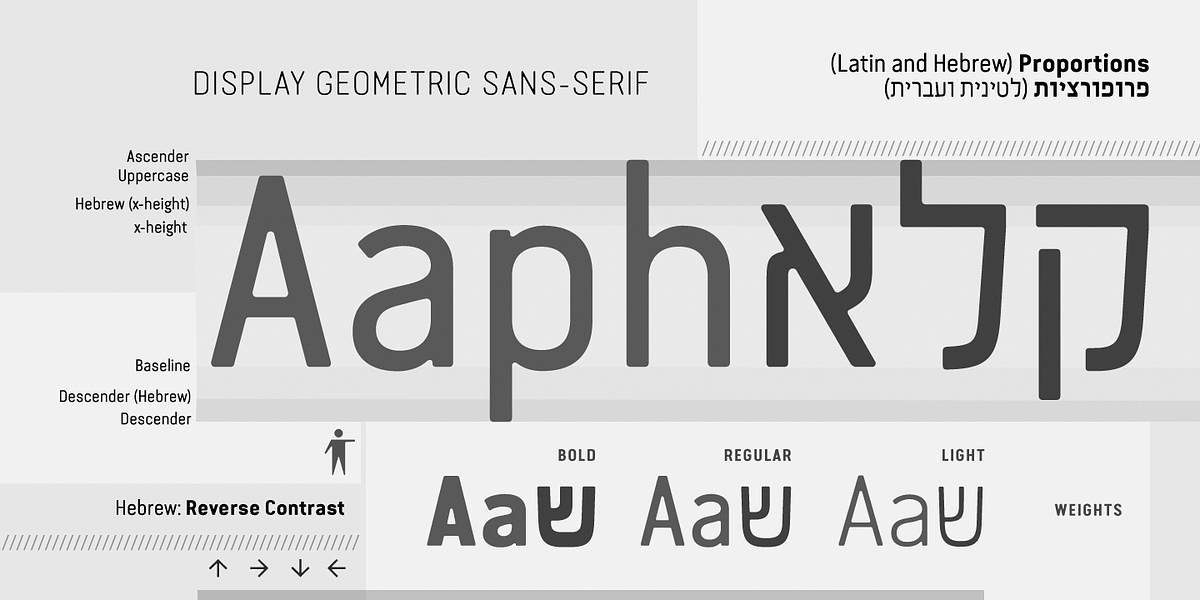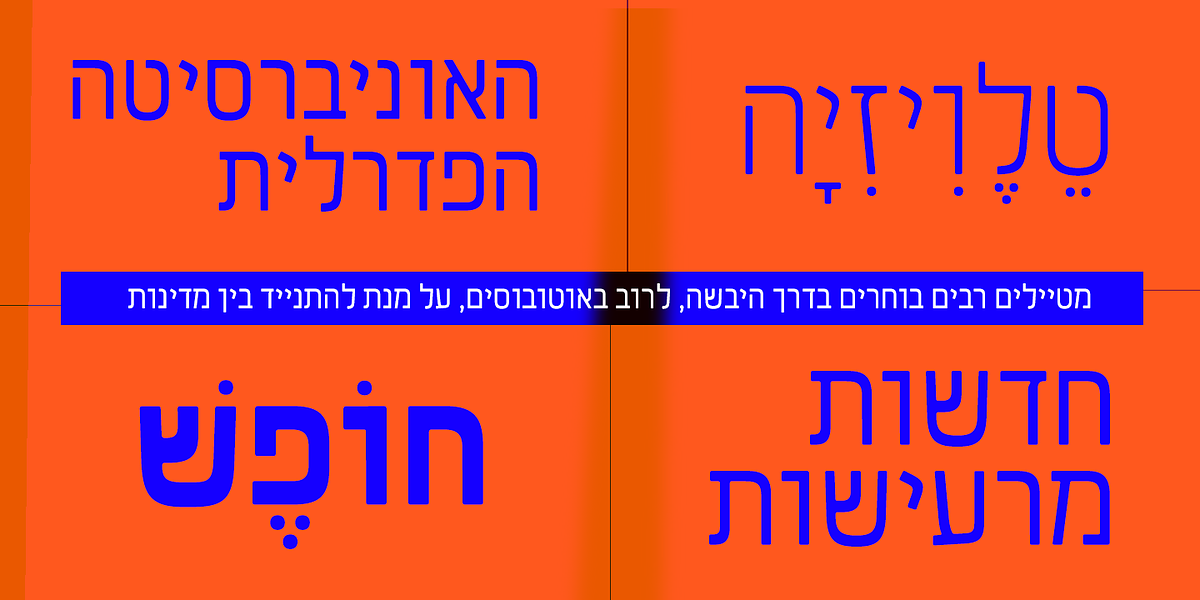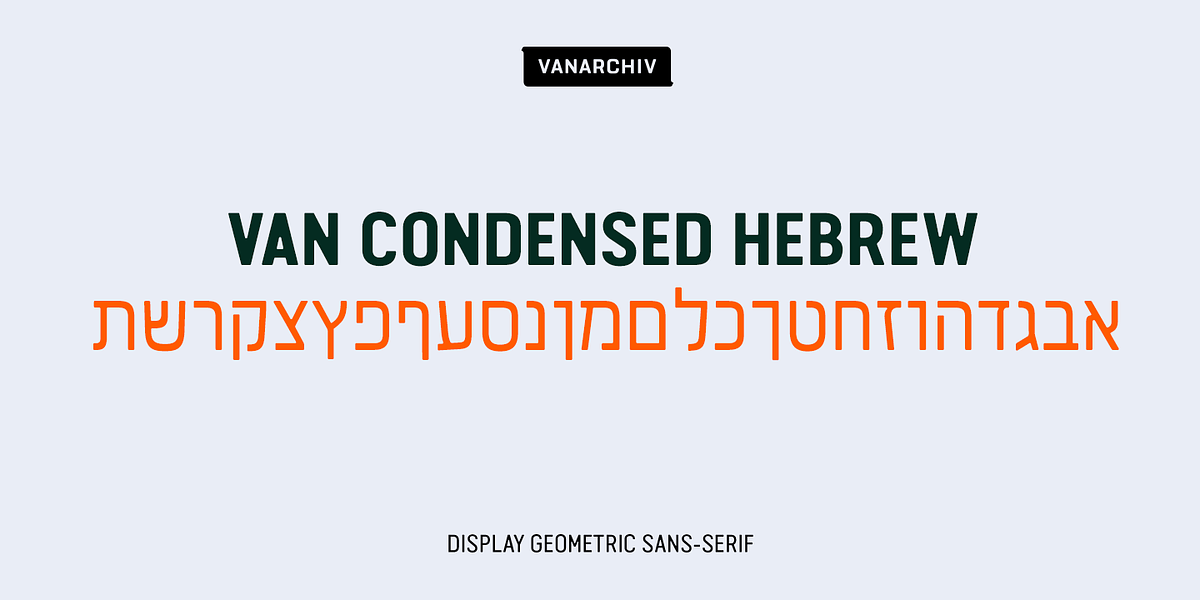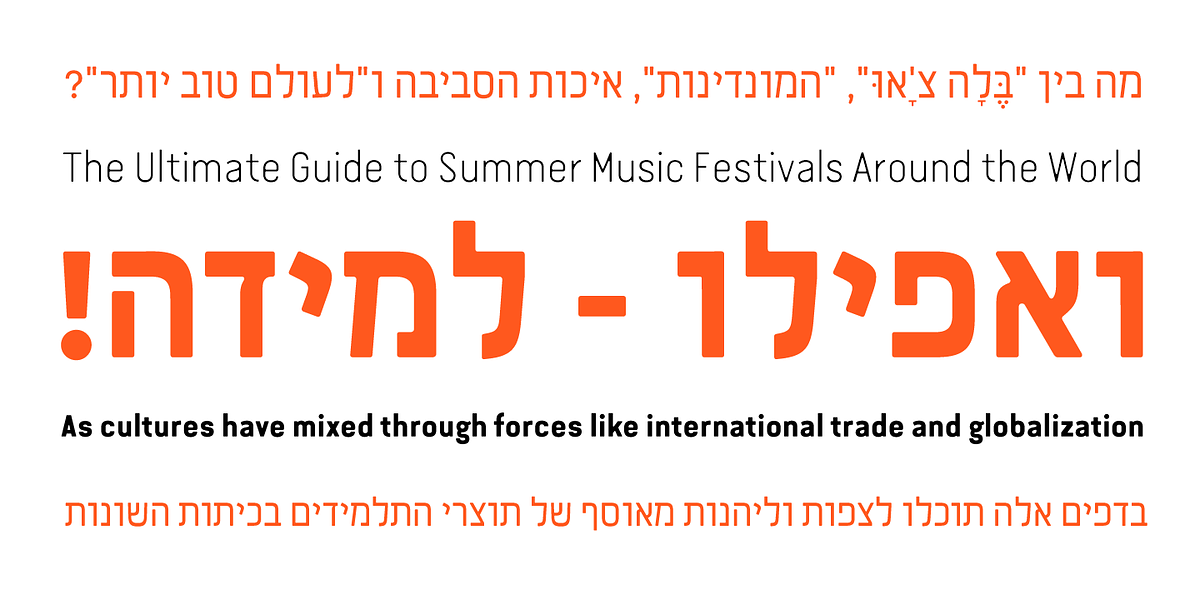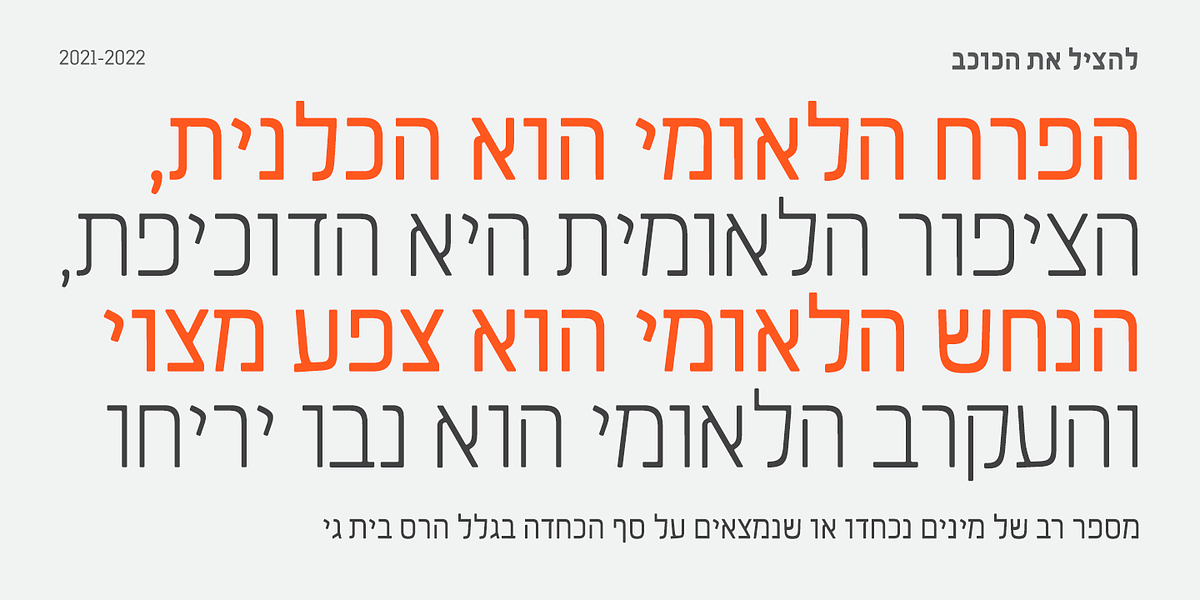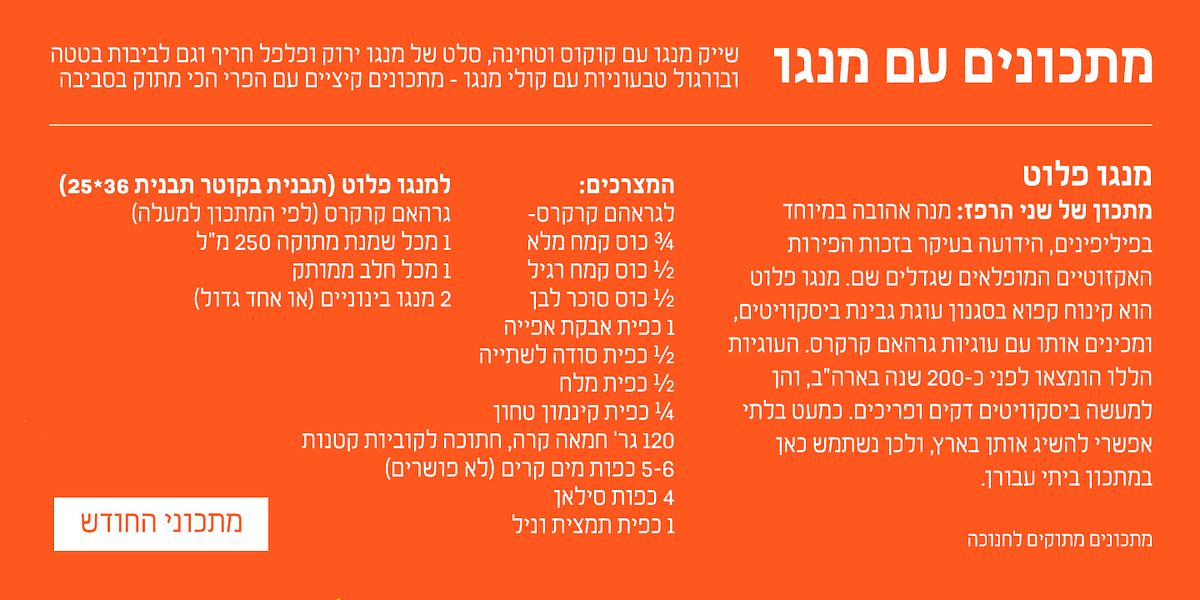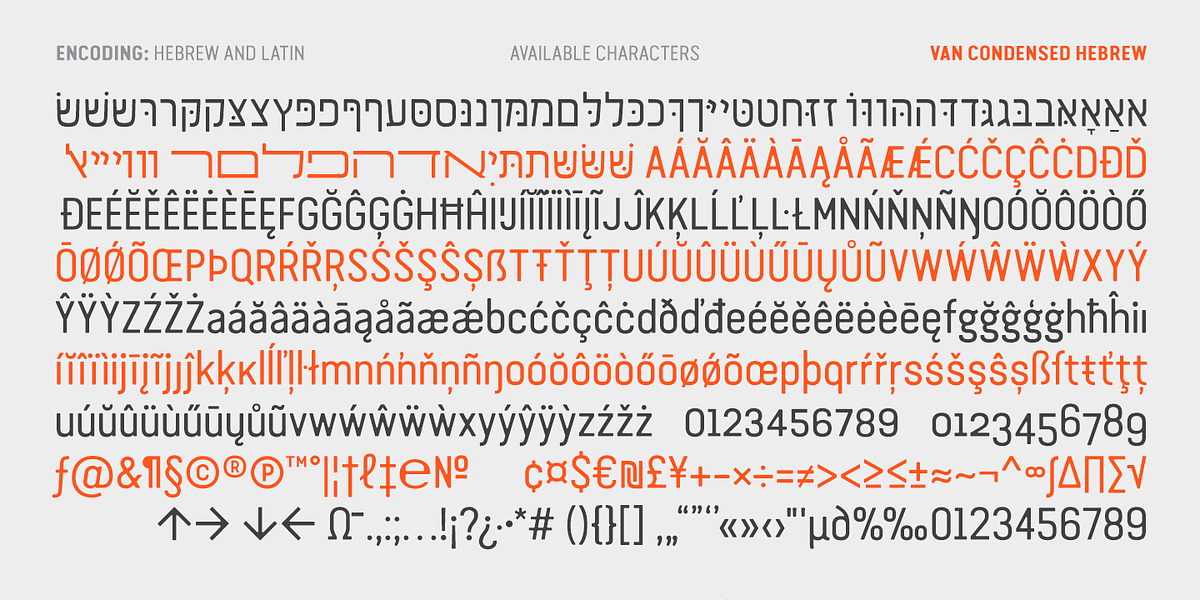
Van Condensed Hebrew
Van Condensed is a geometric sans-serif typeface originally released in 2004. It includes Latin, Greek, and Cyrillic character sets. The Hebrew version follows the same design principles as the Latin version, featuring a geometric structure with rounded corners. However, the Hebrew letterforms exhibit reverse contrast compared to their Latin counterparts.